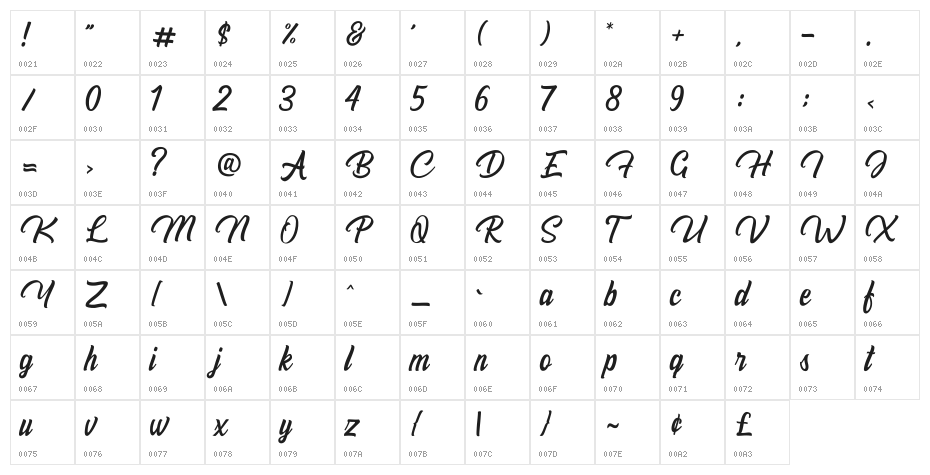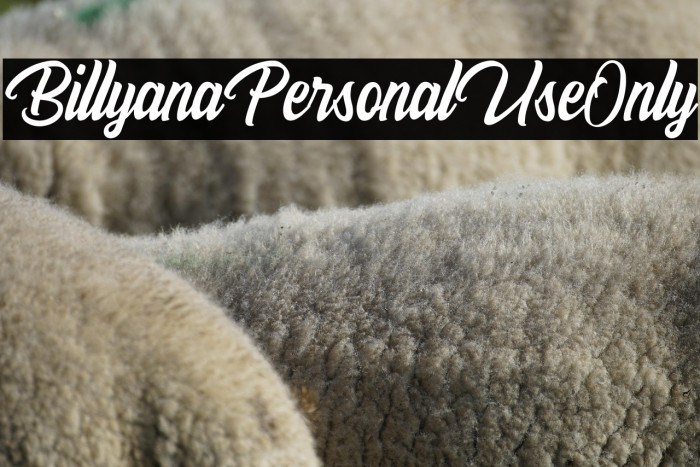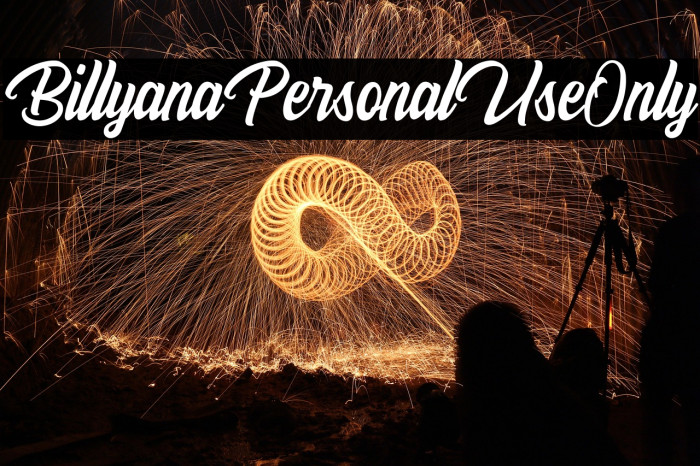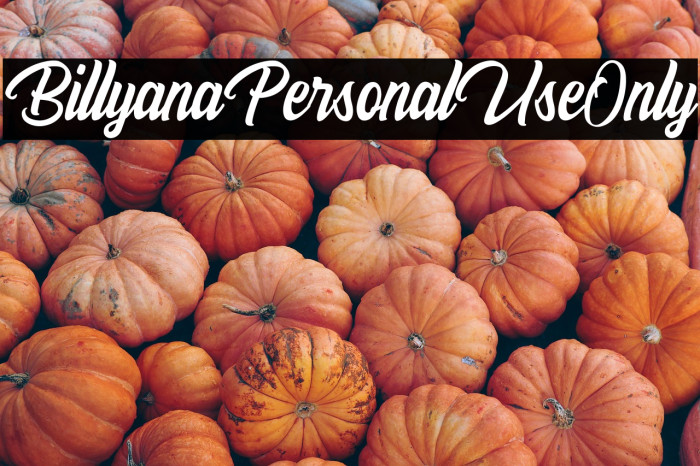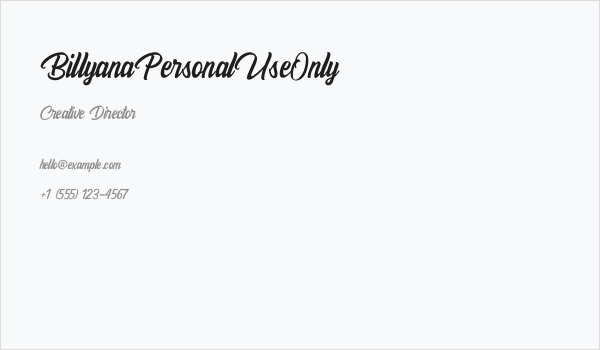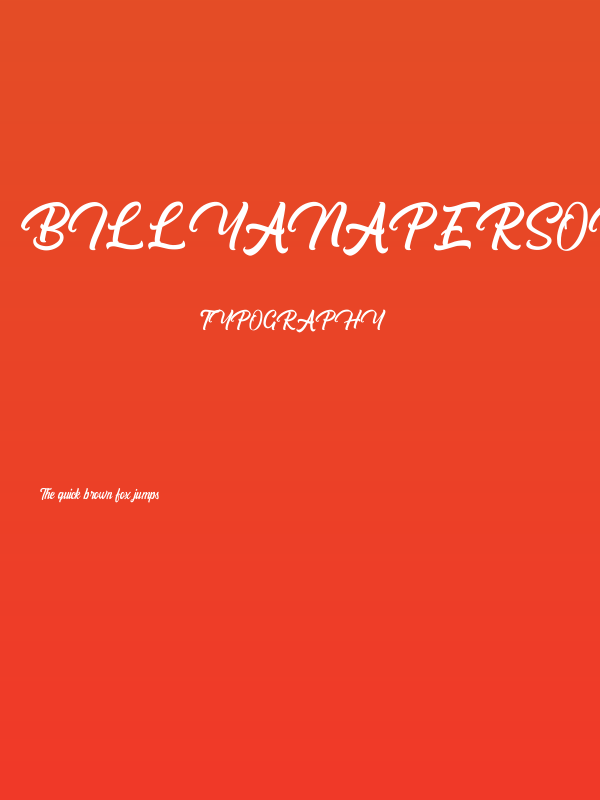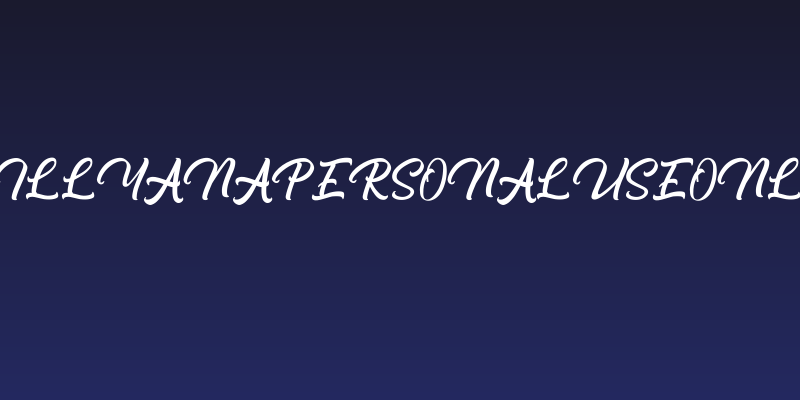
BillyanaPersonalUseOnly Font
BillyanaPersonalUseOnly Description
This font features a flowing, cursive style with a modern twist. The uppercase letters are elegantly connected, giving a sense of fluidity and grace. The lowercase letters maintain a consistent slant, enhancing the script-like appearance. The numerals are bold and slightly rounded, providing a harmonious balance with the letters. Special characters are crafted with the same attention to detail, ensuring a cohesive look throughout. The overall design is both sophisticated and approachable, making it suitable for a variety of creative applications.